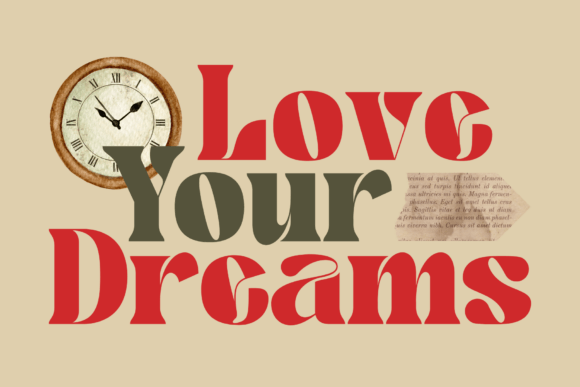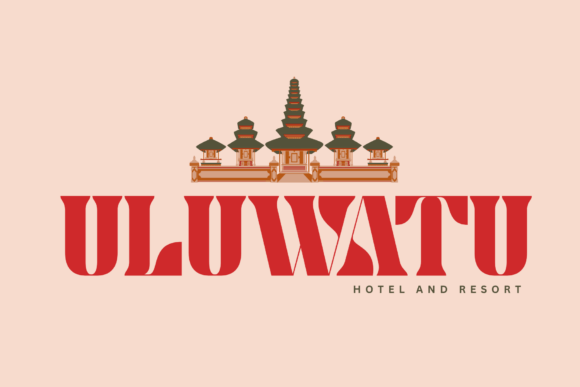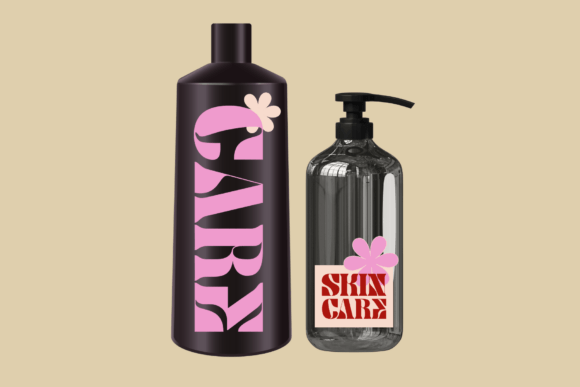
Introduction to Qesmo Font
Do you remember the excitement of rummaging through your grandparents’ attic, uncovering old photographs and dusty vinyl records that told the story of a bygone era? For designers, that thrill of discovery can be just as exhilarating – especially when it comes to the perfect font. The Qesmo Font is a design treasure that embodies the essence of the 90’s, offering a unique blend of vintage charm and modern flair.
As a valuable resource for designers, the Qesmo Font is a game-changer for any creative project. With its high-quality design and transparent background, this font is perfect for those seeking a free download that will elevate their branding to the next level. Whether you’re working on a logo, business card, or website, the Qesmo Font is an optimal choice for leaving a lasting impression.
So why settle for a generic font when you can have a design icon that’s steeped in history and style? The Qesmo Font is more than just a font – it’s a statement piece that will transport your brand to a bygone era of elegance and sophistication.
Key Features of Qesmo Font
- Unique, modern design style with a transparent background, perfect for use in various digital applications.
- Features a large character set, including Latin and Cyrillic alphabets, making it suitable for use in multi-language projects.
- High-resolution design, ideal for use in print and digital media, including web design, graphic design, and UI/UX design.
- Scalable design, allowing for use in various sizes and resolutions without compromising on quality.
Honest Review: Qesmo Font
I recently stumbled upon the Qesmo Font and I have to say, it’s been a game-changer for my creative projects. The high quality of this font is evident from the moment you download it – it’s clear that the designers have put in a lot of effort to create a truly unique and visually appealing design resource.
One of the things that works well for Qesmo Font is its versatility. I’ve used it for a variety of projects, from logos to web design, and it always looks great. The font is available for free download, which is a huge bonus – I love having access to high-quality design resources without breaking the bank.
Some of the key features that make Qesmo Font stand out include:
- Transparent background, making it easy to use with any design
- Perfect for logos, web design, and other creative projects
That being said, there are a few limitations to keep in mind. The font is only available in a limited number of weights and styles, which can make it difficult to customize for certain projects.
Overall, I’m really impressed with Qesmo Font and I think it’s a great addition to any designer’s toolkit. While it may not be perfect, it’s definitely worth checking out for any creative project.
When using Qesmo Font, consider using a transparent background to create a clean and modern look. You can also experiment with different font sizes and styles to create visual interest in your design.
Qesmo Font is commonly used for creative projects such as logos, brochures, and business cards. Its high-quality design and modern look make it an excellent choice for designers looking to create a professional and sleek visual identity.